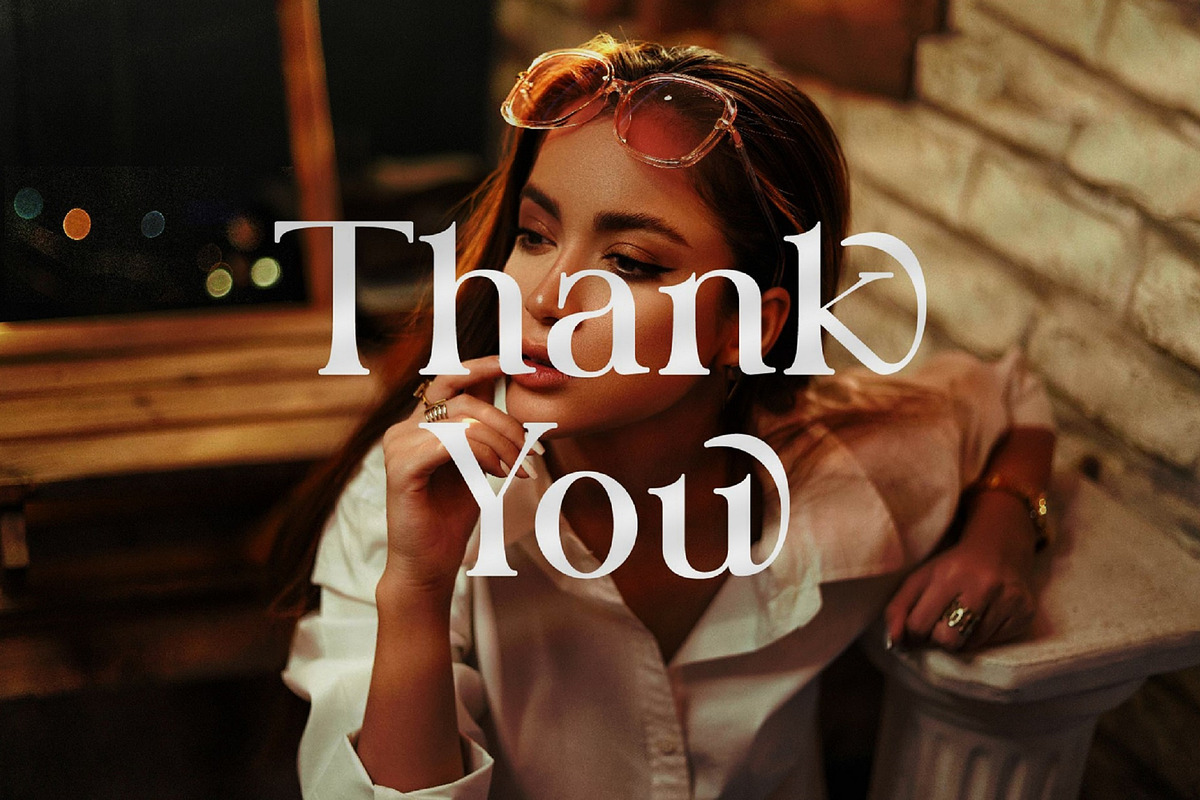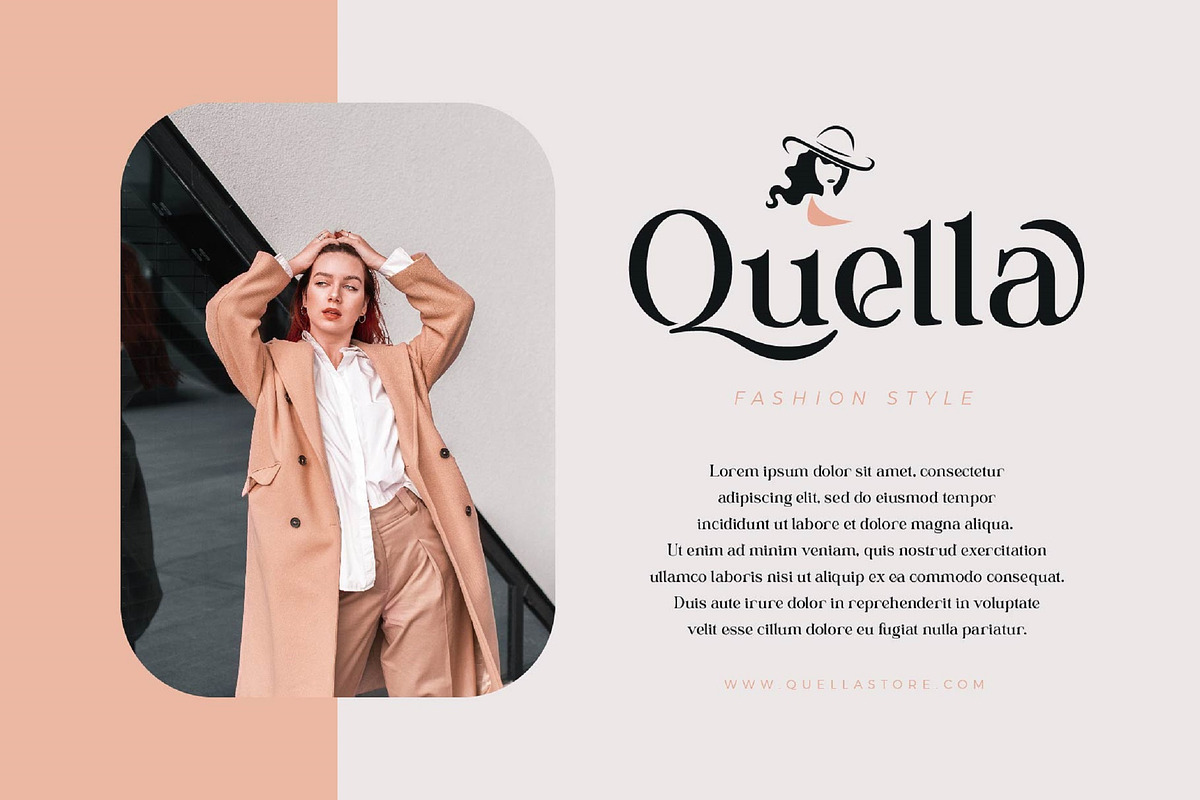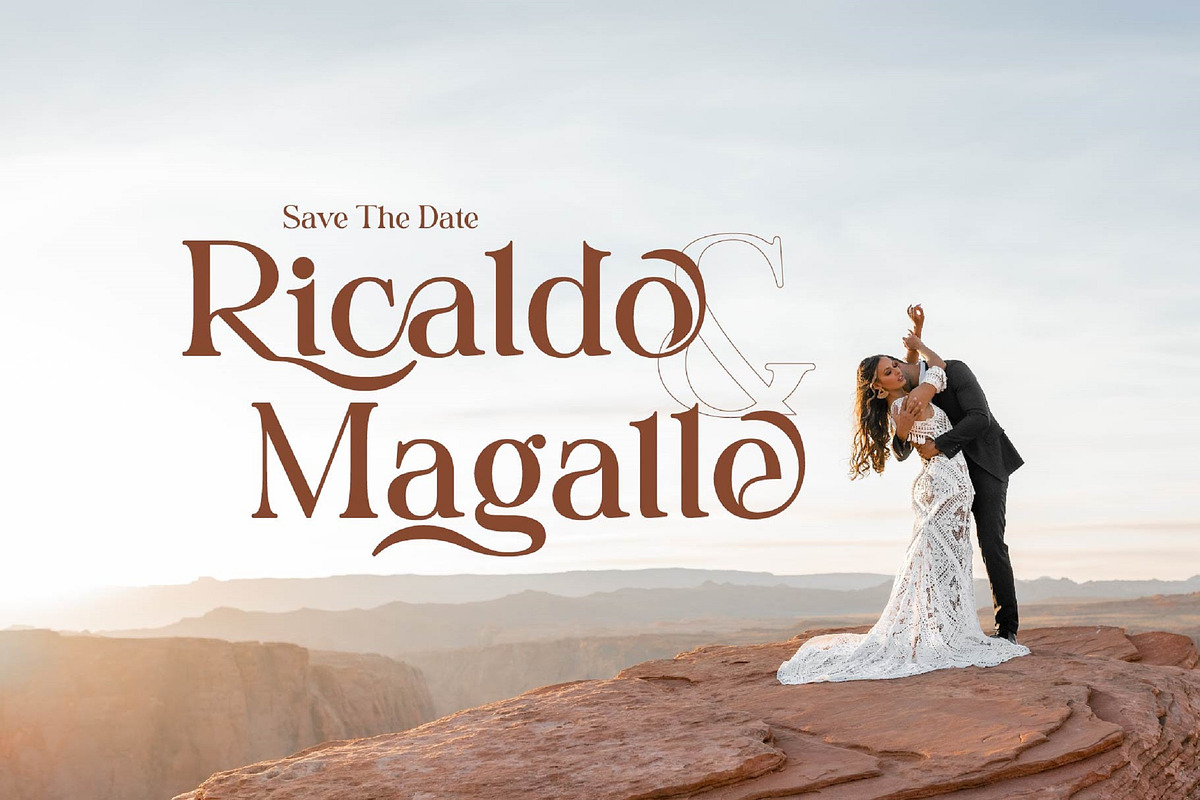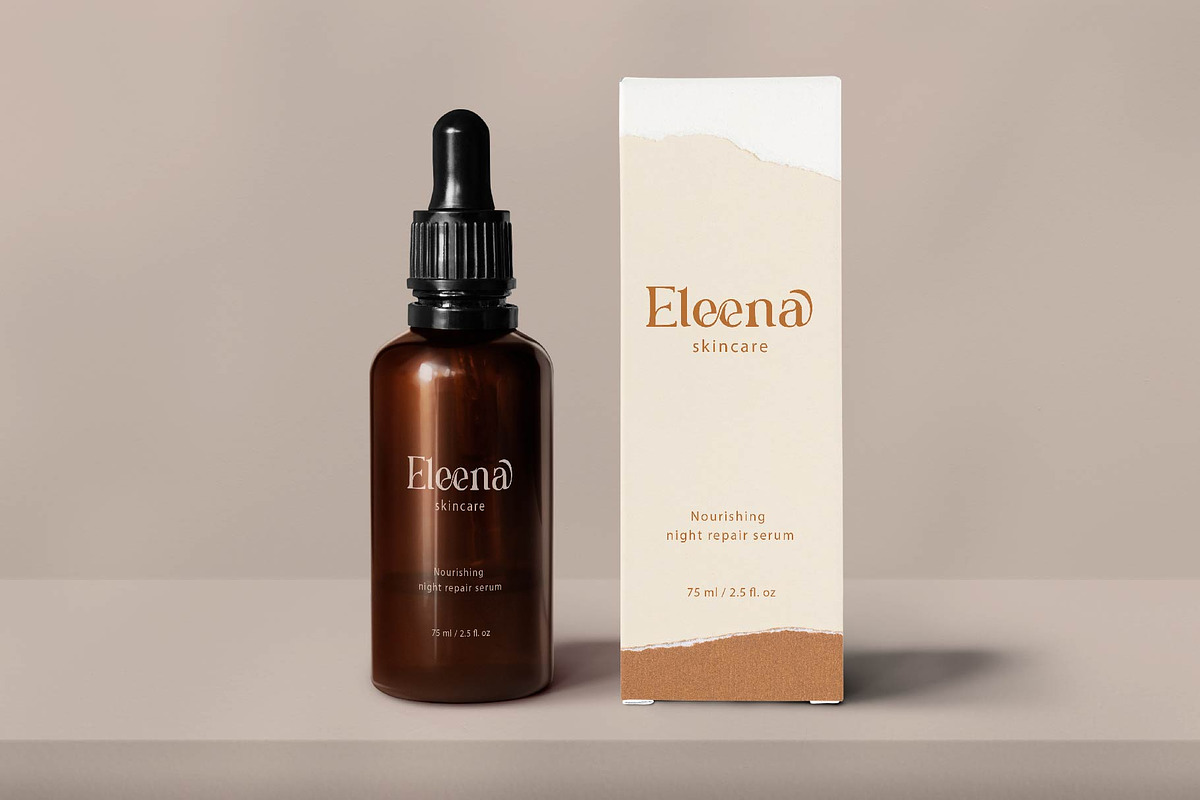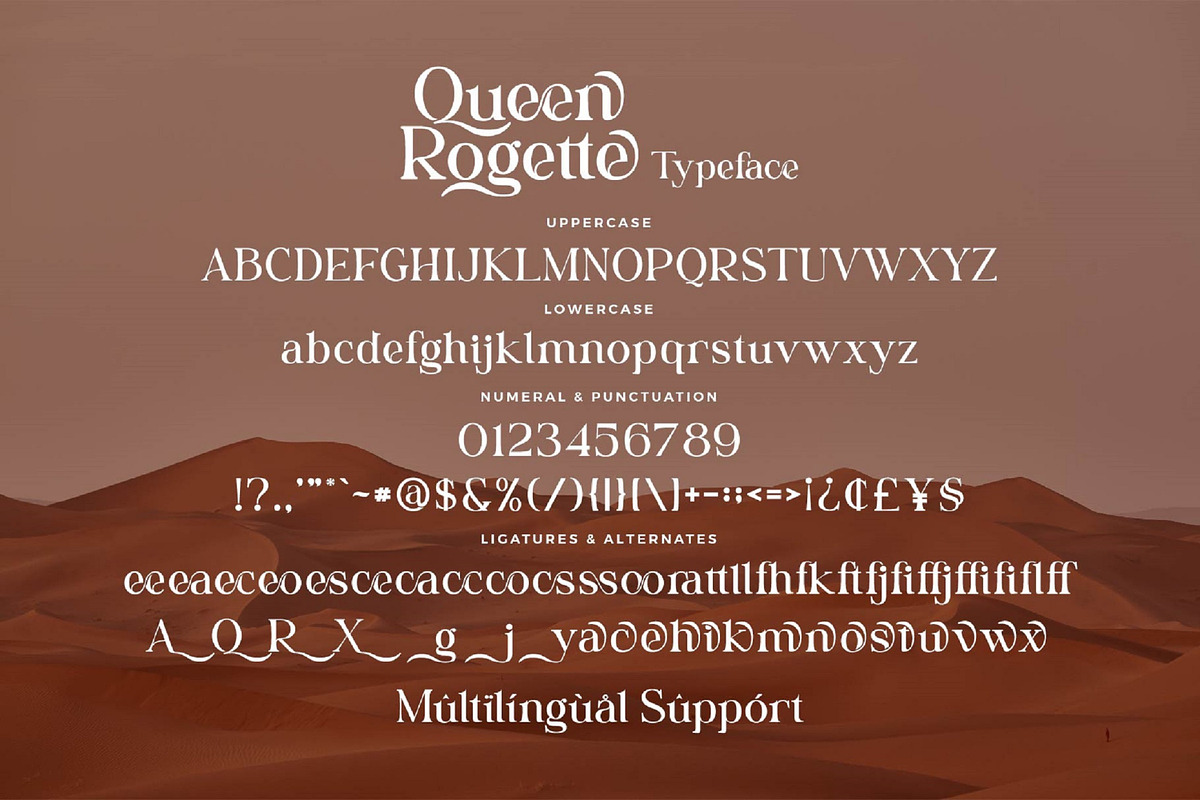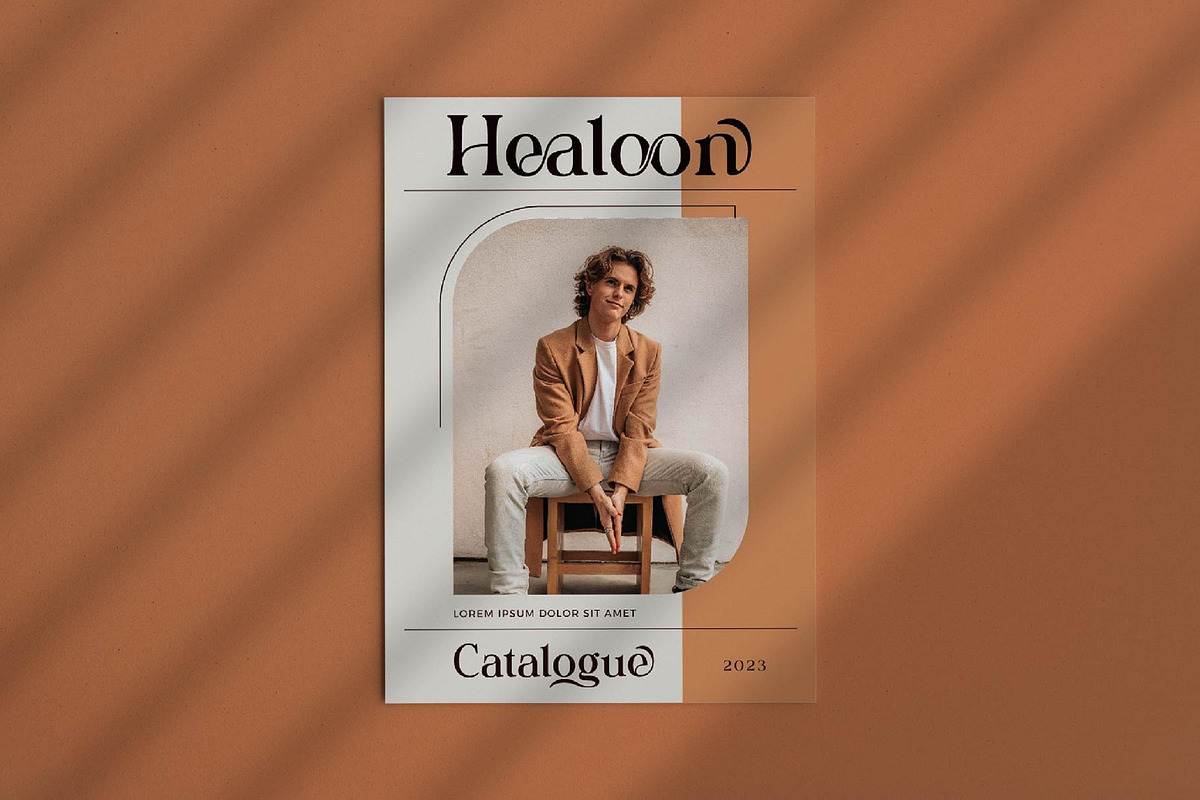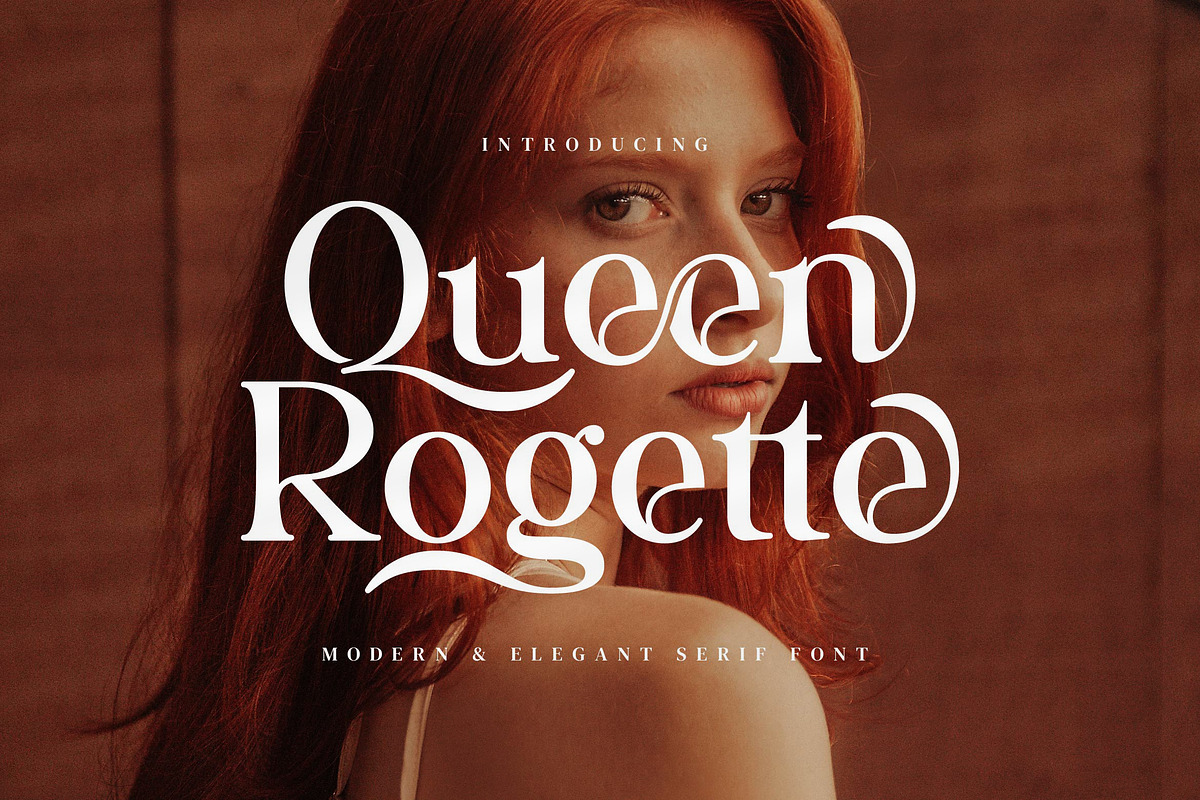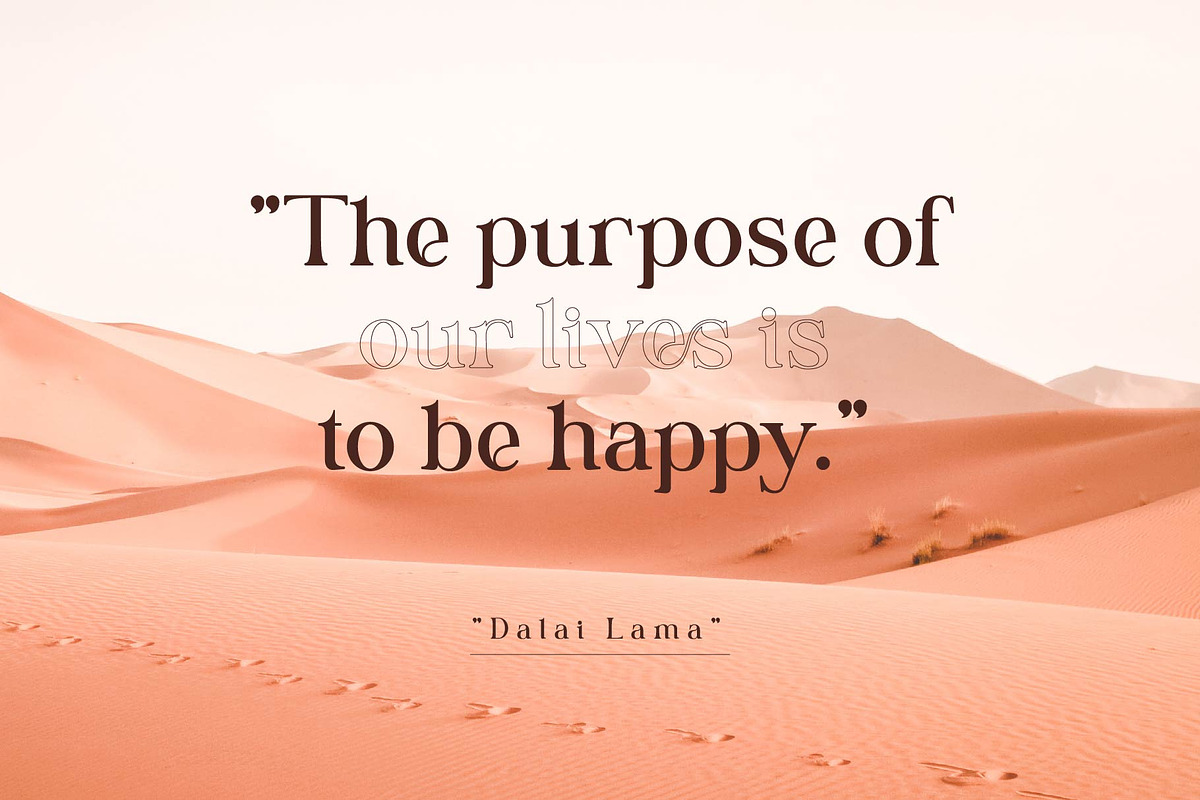
Queen Rogette - A Stylish Serif
Queen Rogette Stylish Ligature Typeface, inspired by the famous minimalist logo perfect for the purposes of designing templates, brochures, videos, advertising branding, logos and more.